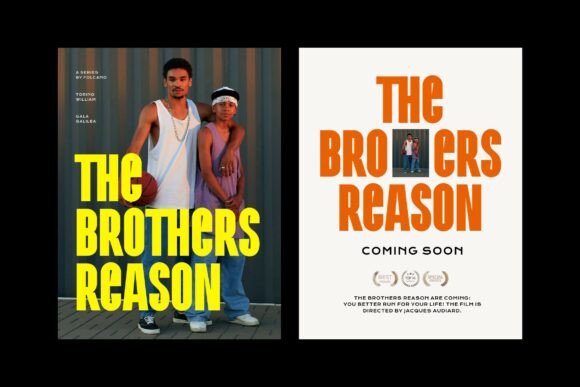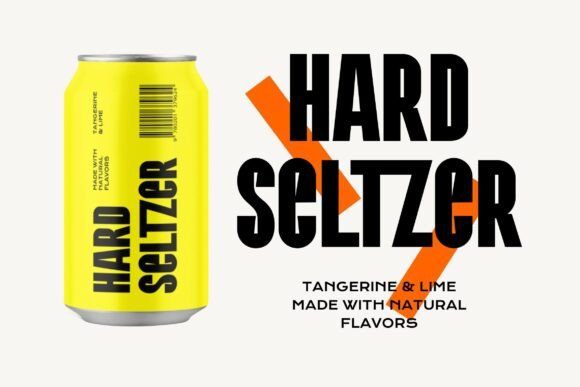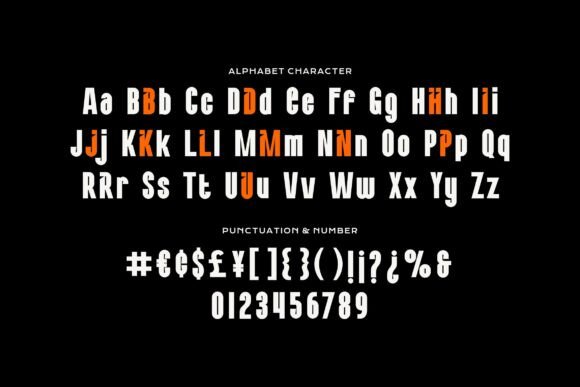
Introduction to Roginds Font
As designers, we’ve all been there – staring at a blank canvas, searching for the perfect font to bring our creative project to life. It’s that moment when inspiration strikes, and we know exactly what we need to make our design truly stand out. For those times, we have Roginds Font – a powerful and bold condensed typeface that’s sure to make a big impact.
Roginds Font is more than just a design resource – it’s a game-changer for designers looking to elevate their work. With its tall, narrow letterforms and strong vertical rhythm, it’s perfect for headlines, titles, and contemporary branding. Whether you’re working on a high-impact poster design or creating a cinematic movie title, Roginds Font is the ideal choice.
Key Features of Roginds Font
• The font size is scalable, making it suitable for use in various design contexts, from small text to large headings.
• The font is designed to be highly customizable, with a range of styles and effects available, including bold, italic, and outline options.
Honest Review: Roginds Font
As a designer, I’m always on the lookout for high-quality design resources to elevate my creative projects. I recently stumbled upon the Roginds Font, and I have to say, it’s been a game-changer for my recent designs.
• What works well: ✨ The Roginds Font is incredibly versatile, with a wide range of styles and weights to choose from. I love how easy it is to customize and pair with other fonts for a unique look.
That being said, there are a few limitations to keep in mind:
• ⚠️ The font may not be suitable for all types of projects, particularly those requiring a lot of complex typography or detailed text arrangements.
• ⚠️ Some users may find the font’s design to be a bit too minimalist, which may not appeal to those who prefer more ornate or decorative fonts.
Overall, I’m thoroughly impressed with the Roginds Font and would highly recommend it to designers looking for a high-quality, free design resource for their creative projects.
Tips for Getting the Most Out of Roginds Font
To maximize the use of Roginds Font, experiment with different font sizes, colors, and styles. This will help you create a visually appealing design that showcases the font’s capabilities. Additionally, consider combining Roginds Font with other design elements to create a unique and engaging visual identity.
Roginds Font is suitable for a wide range of creative projects, including logos, brochures, business cards, and social media graphics. Its high quality and transparent background make it an excellent choice for designs that require a clean and modern look.